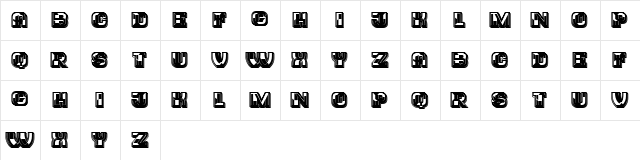
Trader College Regular
Design Context for Trader College Typeface
Trader College has the bold swagger of sports branding: strong, assertive letterforms designed to dominate headlines and jerseys alike.
A natural choice for gym brands, fantasy sports, jersey lettering, and action-driven headlines.
Font Pairing: Use alongside a condensed or geometric sans for supporting copy — keep the pairing bold, functional, and free of ornament.
Pro Tip: Use Trader College in all-caps headlines where its athletic energy can fully express itself. Pair with a solid, simple sans for supporting text.